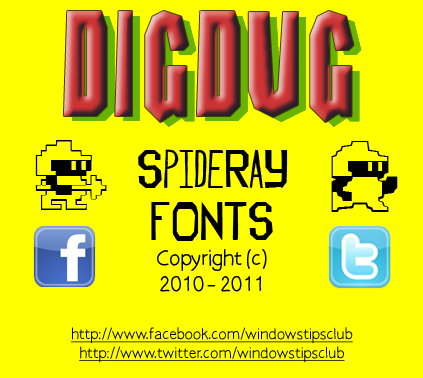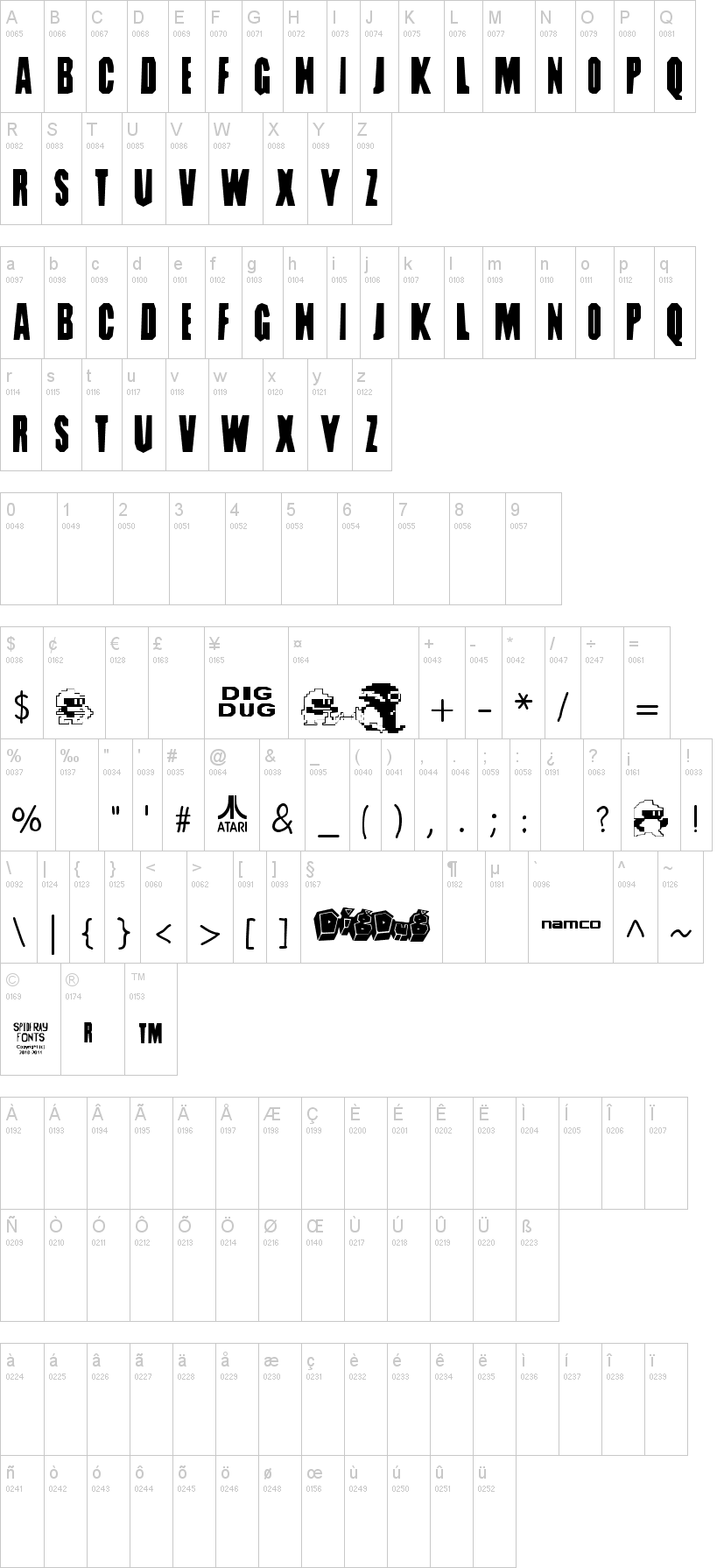
Note of the authorLoved this game on the Atari always wanted to create a font based on the name and a variation of all the different ways that it has been realized since its arcade debut. So far I have created only uppercase letters and a few bonus glyphs, please enjoy there are more to come...